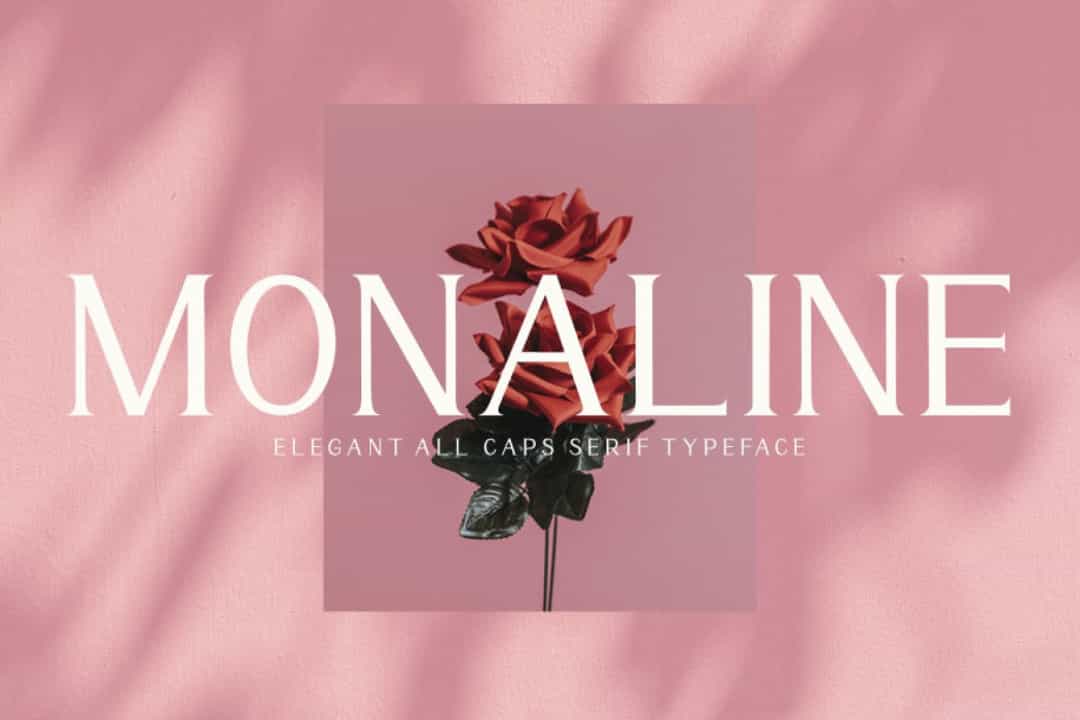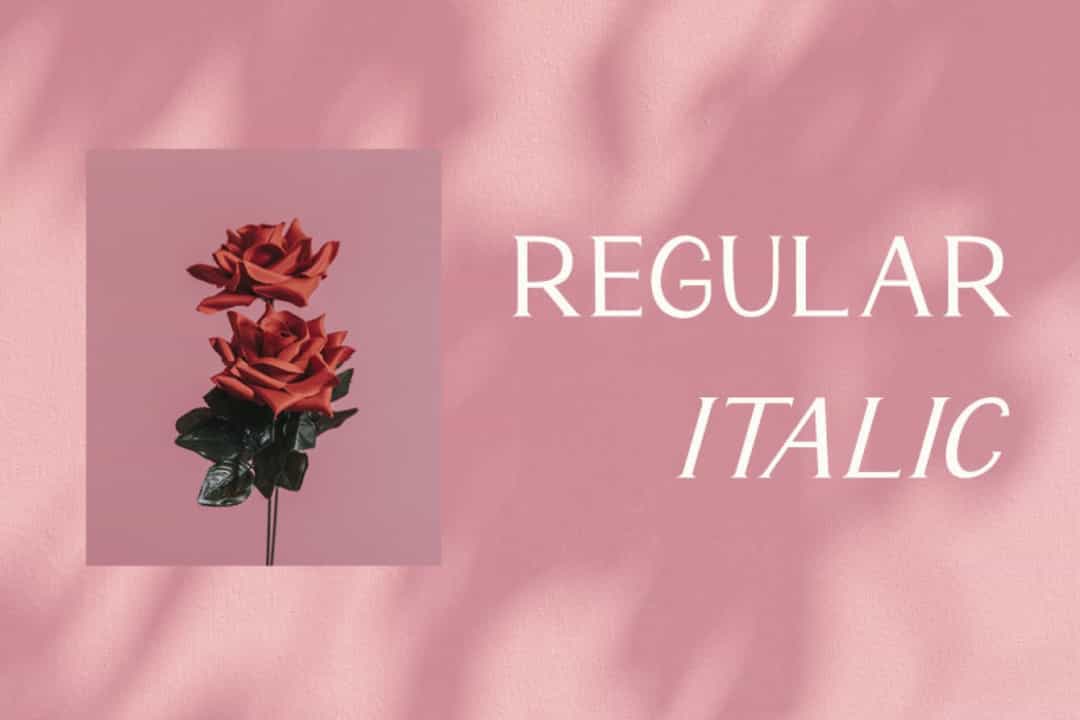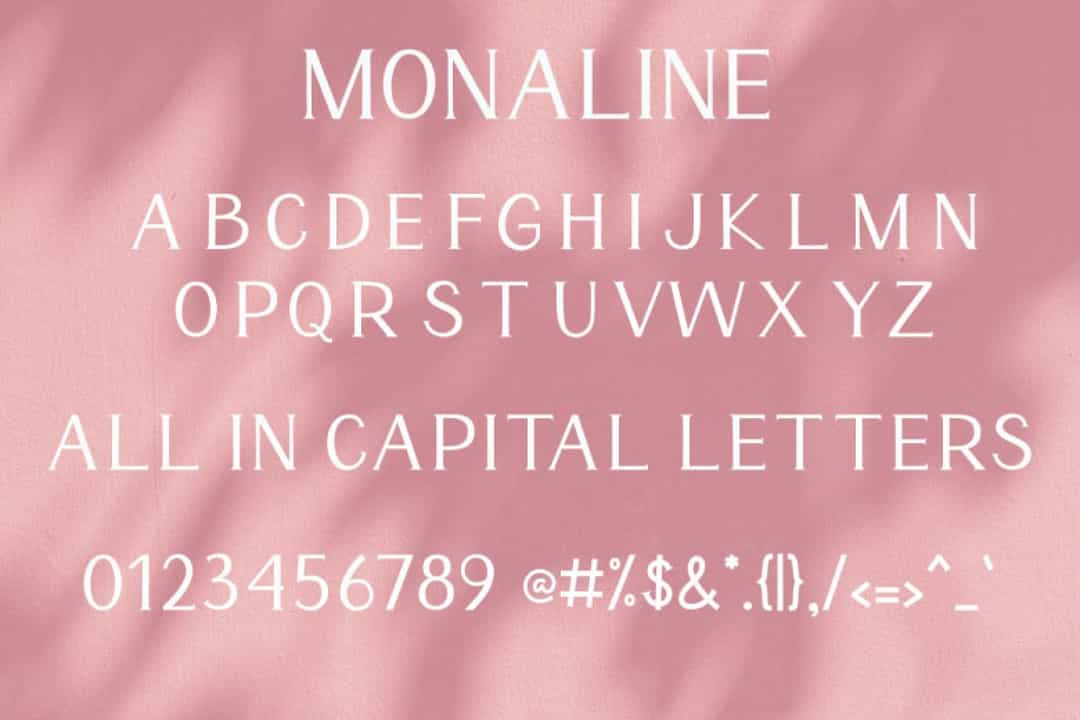
Monaline Font
Monaline is an elegant and contemporary serif font with an eye-catching modern style, perfect for logos, branding business as well as web-based designs or business cards that need an individual touch.